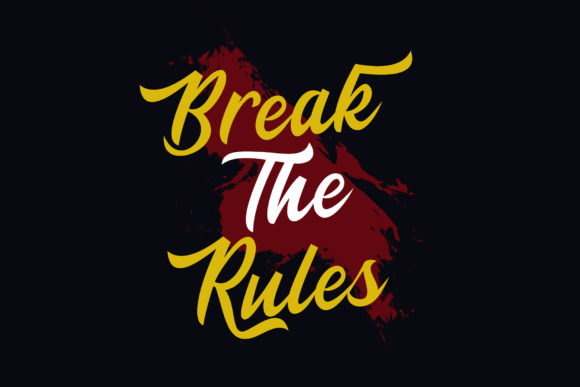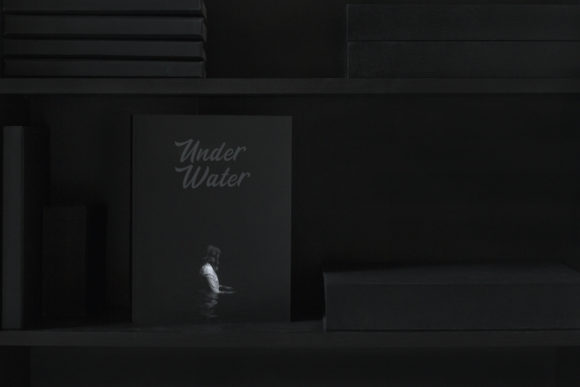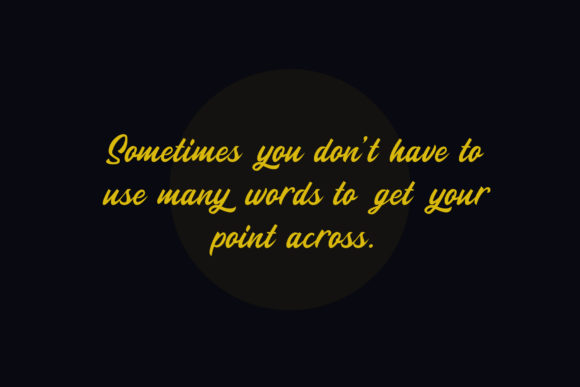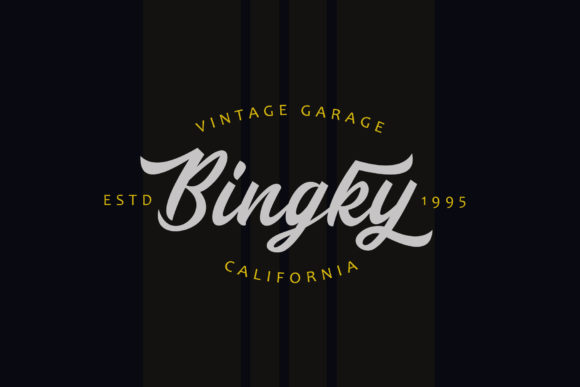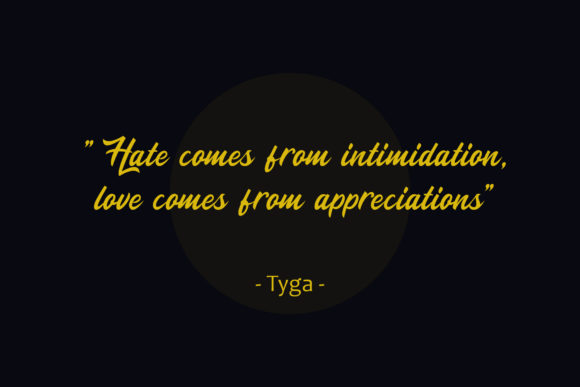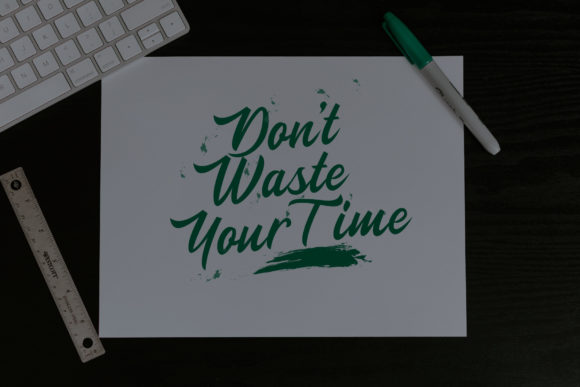
Introduction to Qamy Font
Qamy is a gorgeous and bold handwritten font, crafted to give your headlines and logotype projects a stylish touch.
This font reads as strong, confident, and dynamic and can add tons of nostalgic character to your designs .
Key Features of Qamy Font
Why Choose Qamy Font?